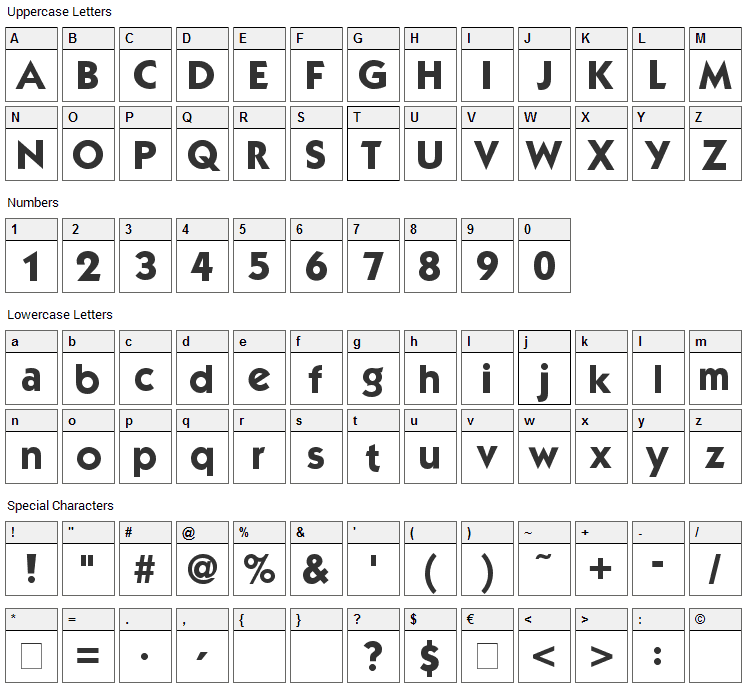
Mouser Font
Hey there everyone. This is my first 3 part font series. Unlike most of my others, it looks great in all caps. Good news for you IM users. Feel free to re-distribute this one for any non commercial purpose. If you like the font, please email me simply let me know. Im a sucker for flattery :-) Take care everyone.